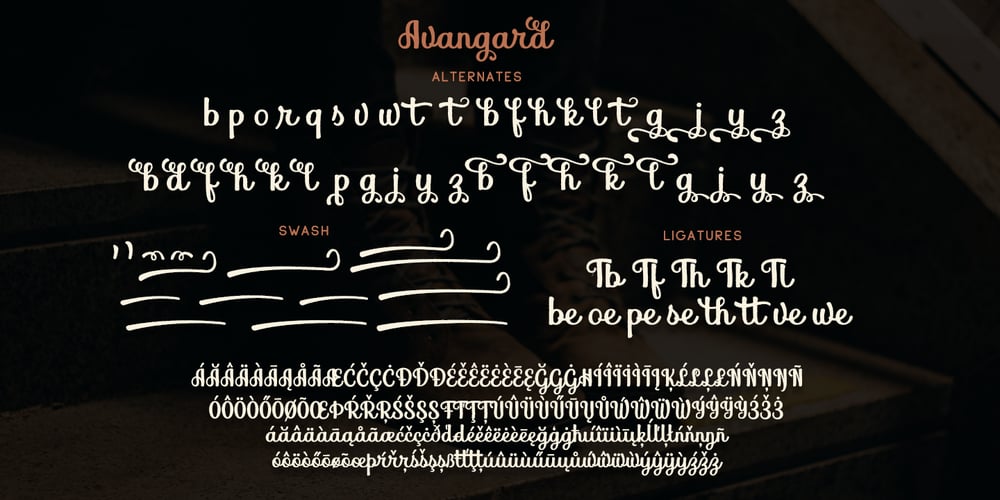
Avangard
Avangard font
Avangard Font Family was designed by Pavel Larin and published by Larin Type Co. Avangard contains 2 styles and family package options. Avangard – a new hand drawn script font in 2 styles. These fonts are ideal for branding and will decorate any of your projects. You can also use them to create a logo or use for small businesses, t-shirts, book covers, stationery, marketing, blogs, magazines, and more. Also I made alternates, ligatures and swash, with their help you can make your project more beautiful and unique. Enjoy using!